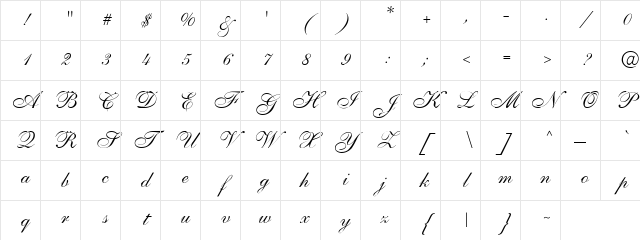
COSMI033 Regular
Design Context for COSMI033
COSMI033 is a composed and adaptable typeface that performs quietly and consistently across a wide range of design contexts.